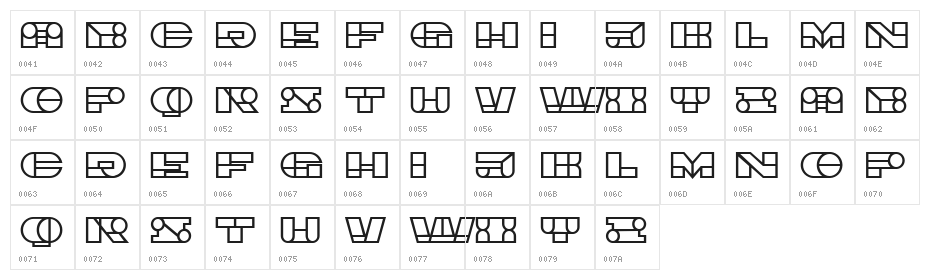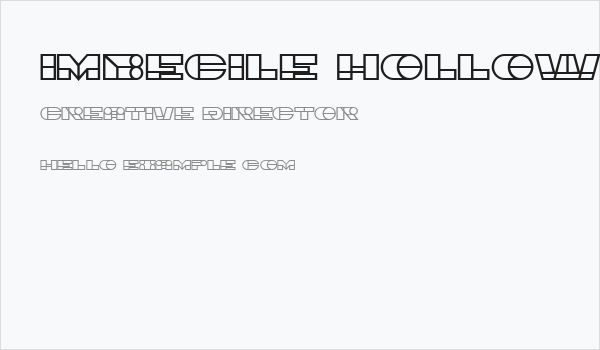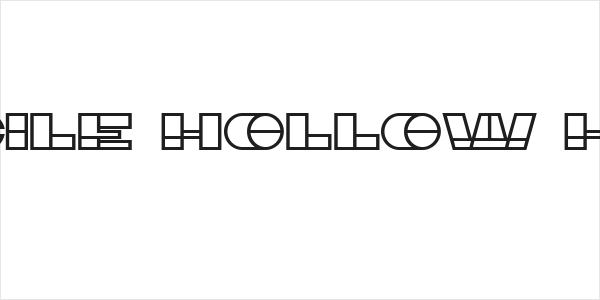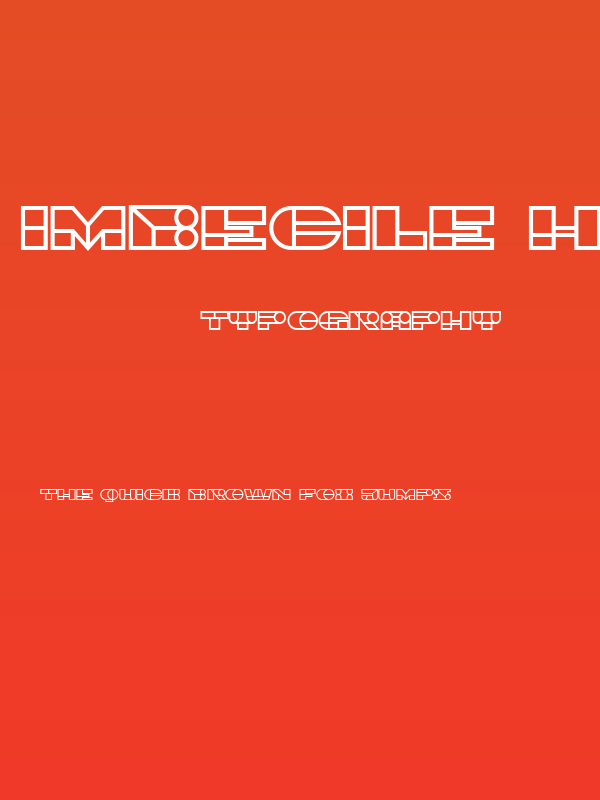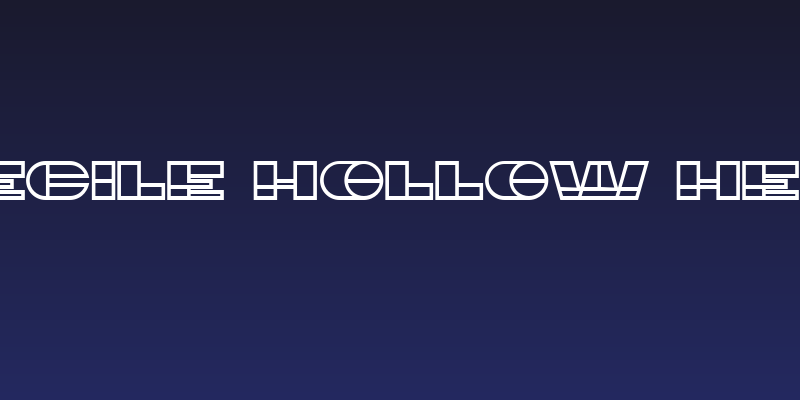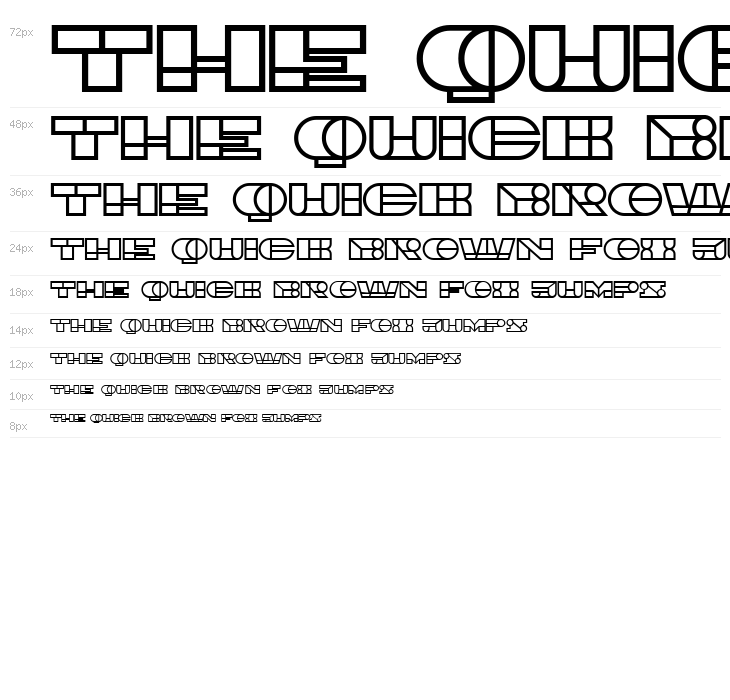
Imbecile Hollow Heavy Font
Imbecile Hollow Heavy Description
This font features a bold, geometric design with hollow interiors, creating a striking visual impact. The characters are constructed with thick lines and sharp angles, giving them a modern and futuristic appearance. The use of negative space within each letter adds a unique dimension, making it stand out in any design. The uppercase letters are particularly distinct, with intricate patterns that resemble architectural structures. This font is ideal for projects that require a bold statement and a contemporary aesthetic.